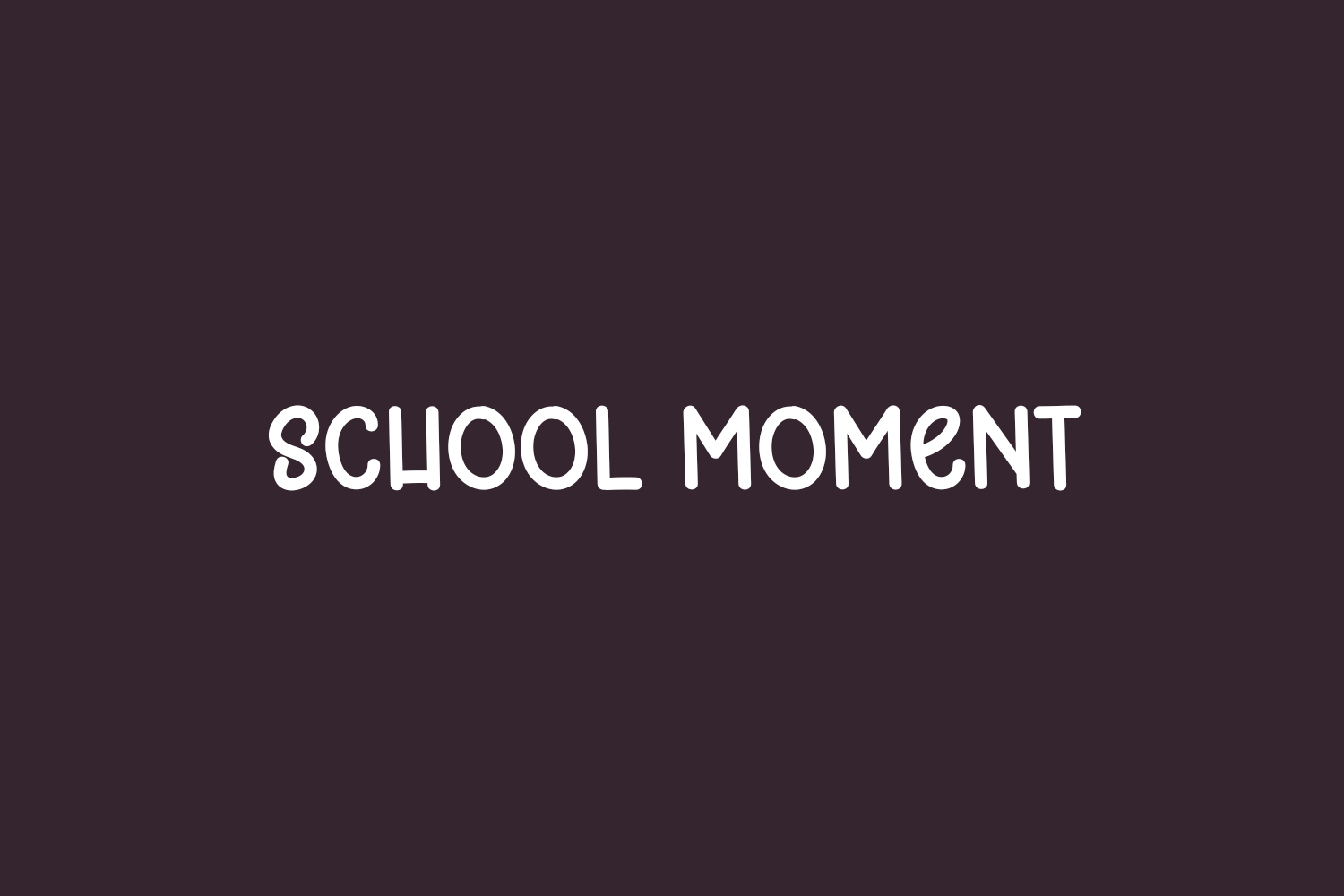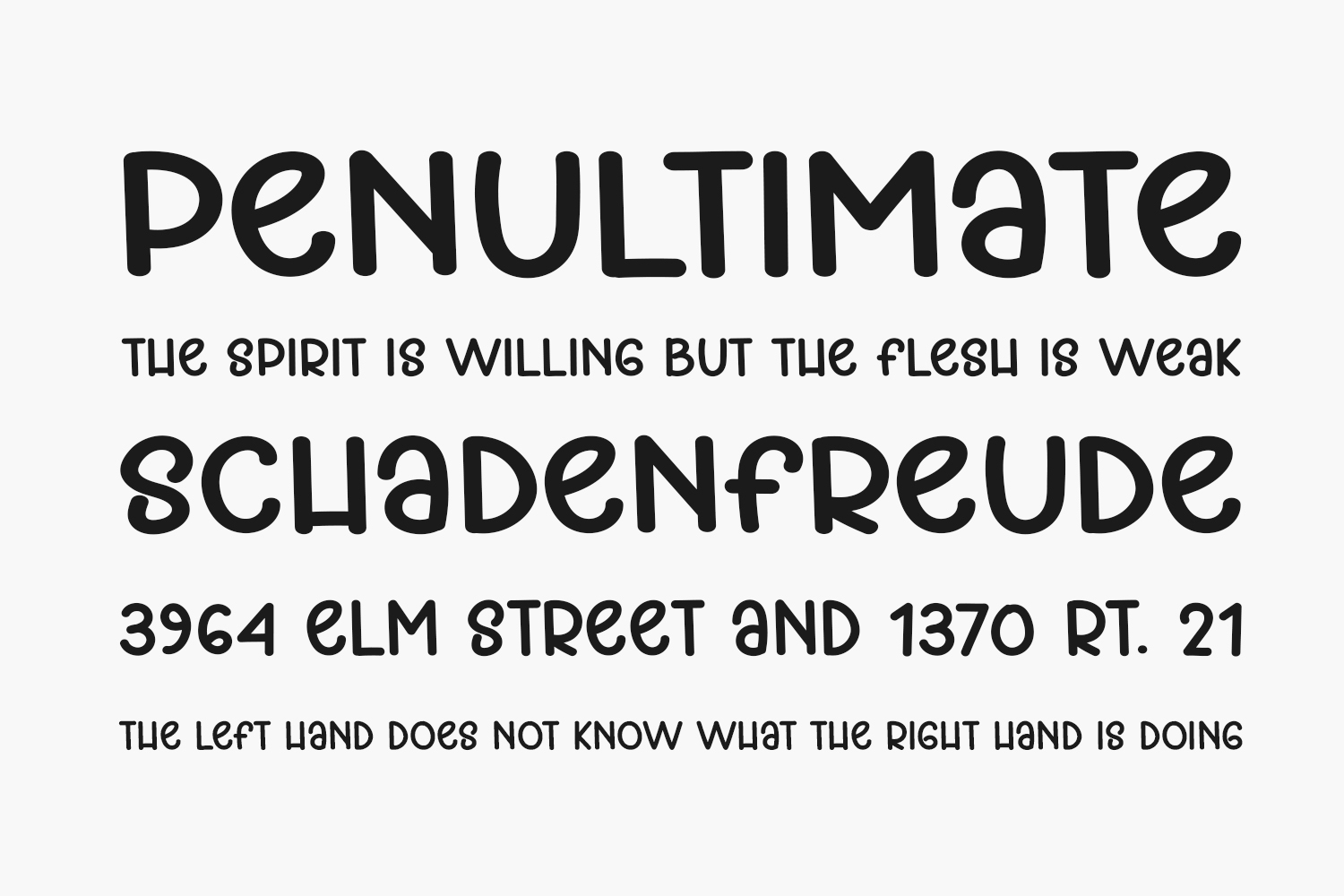
Introducing School Moment Free Font, an enchanting and whimsical handwritten font designed to captivate hearts. Discover its delightful charm and unleash your creativity to craft stunning designs that will delight both children and adults alike. School Moment Free Font is free for personal use only. Please purchase the full version for commercial use.